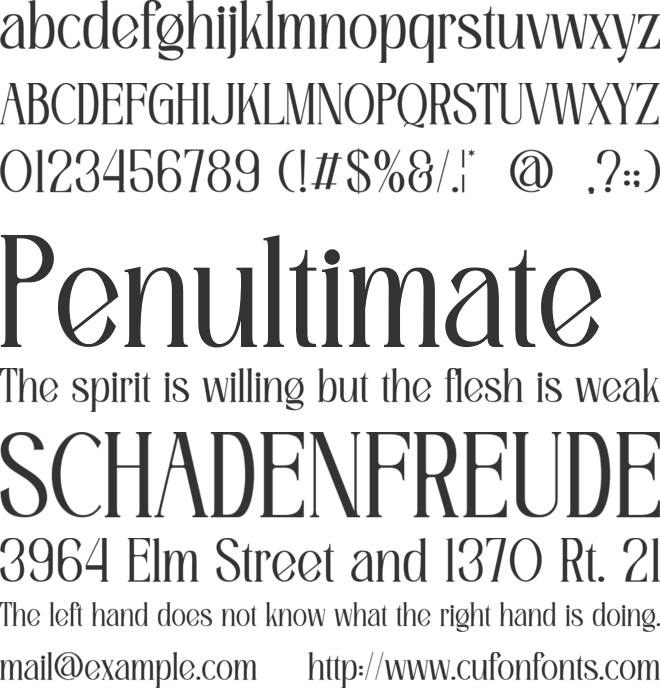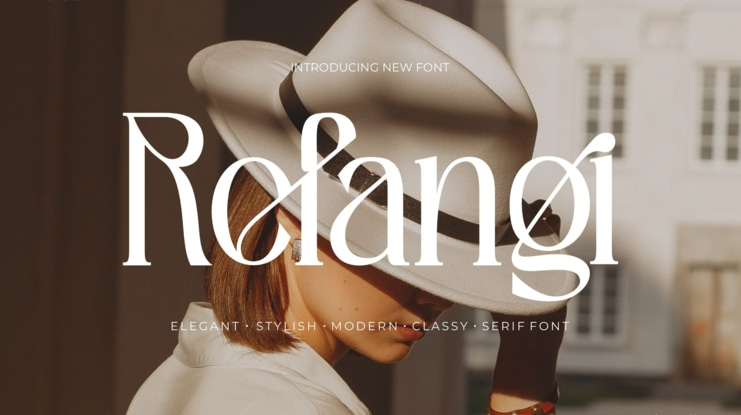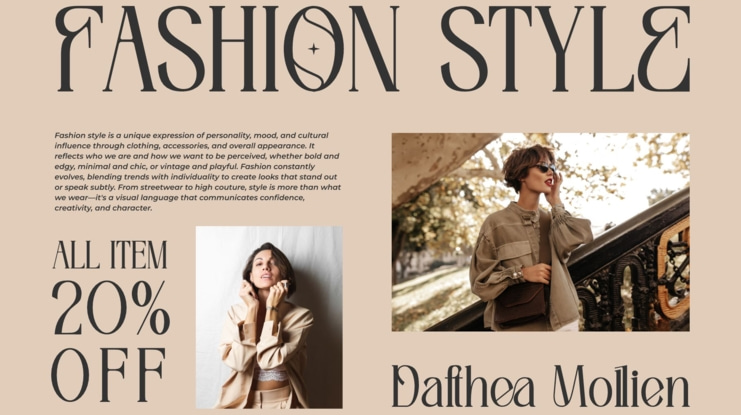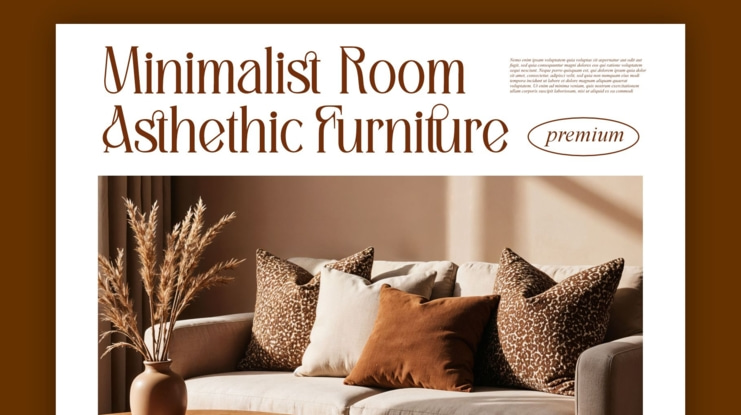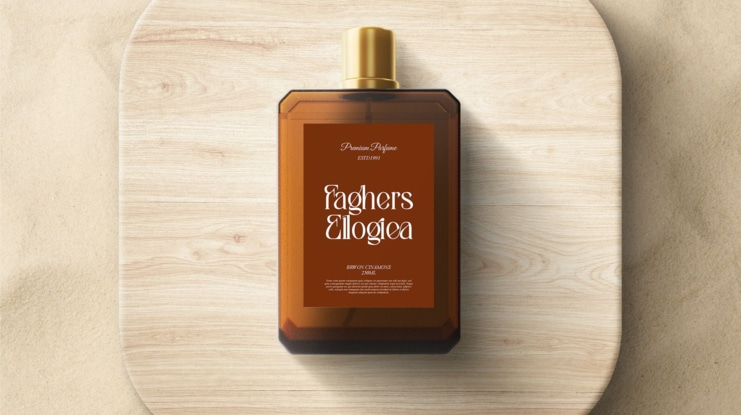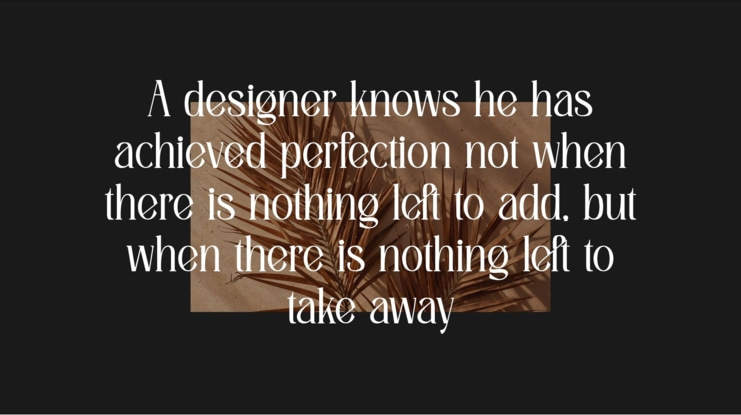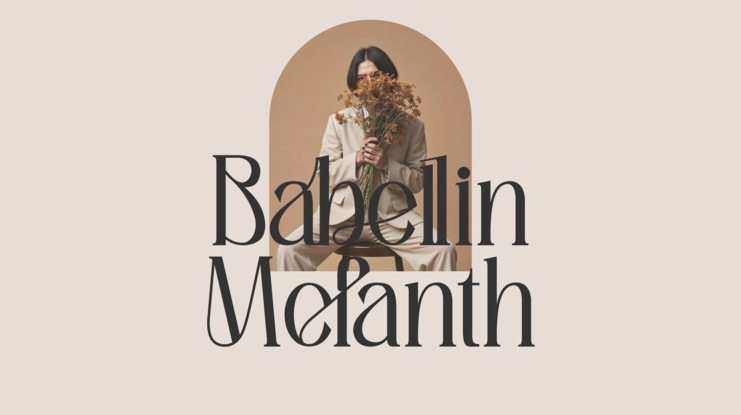
Refangi Font
Introducing Refangi is modern retro serif font, trendy, elegant and stylish font. It has a unique character. It is perfect to be combined with invitation card designs, company logos, movie titles, movie names, business cards, book titles, brand names and various other designs.
FEATURE
- Uppercase and lowercase
- Numbering and Punctuation